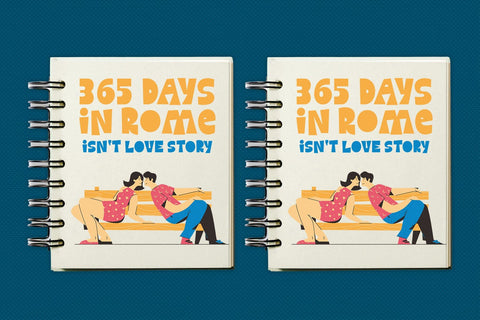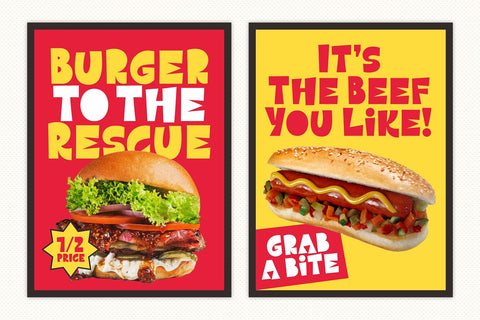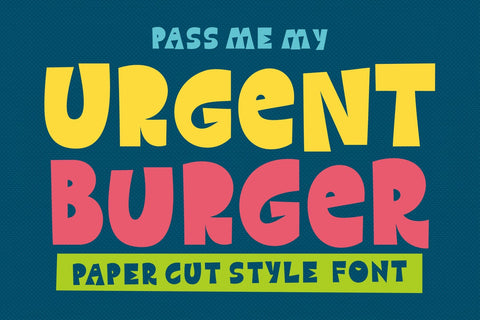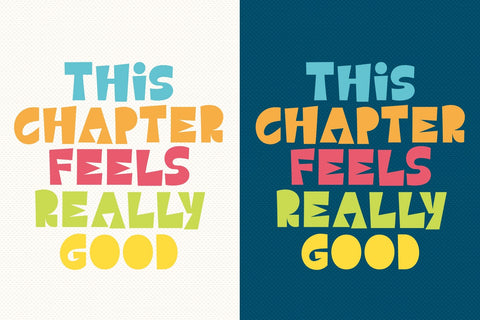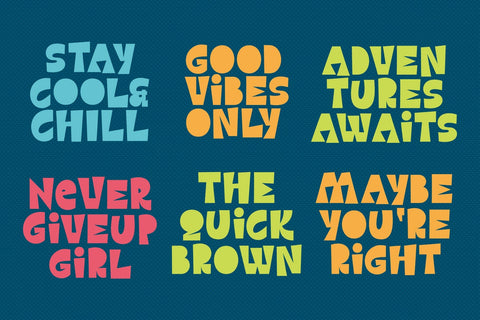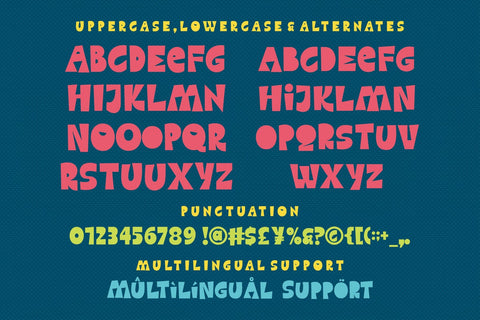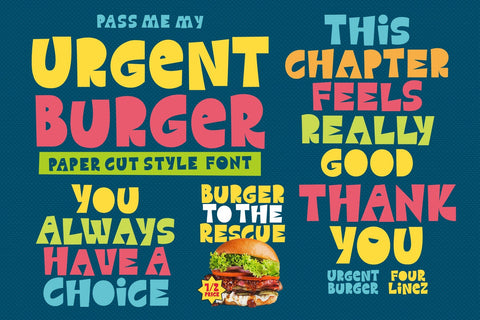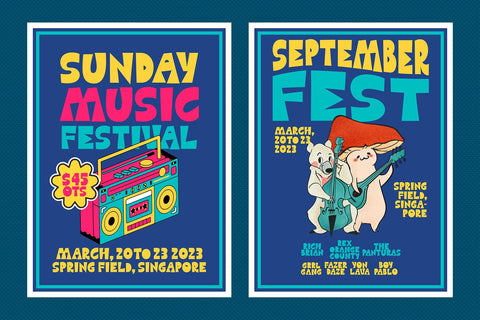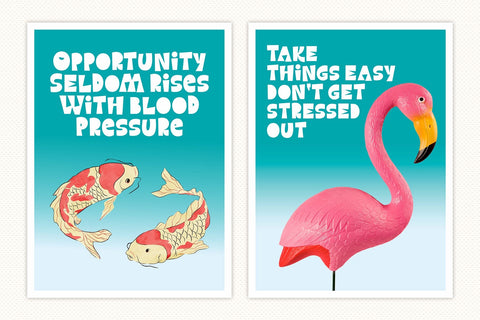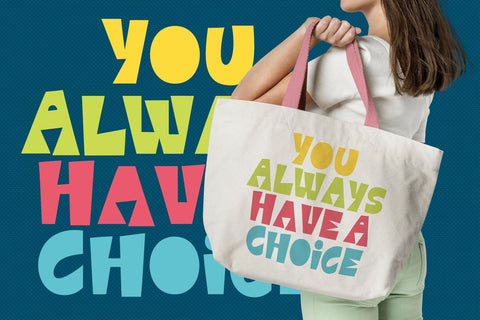
Urgent Burger - Papercut Style Font
Meet Urgent Burger, a font inspired by paper cut styles.
"Urgent Burger" is not just about looks; it's also designed with the science of typography in mind. Each letter is crafted for exceptional readability and legibility. So, your message always shines through.
Whether you're designing a whimsical birthday card, a captivating logo, or a funky poster, "Urgent Burger" adapts effortlessly to any project. With multiple weights and styles, you have the creative freedom to play around and explore endless possibilities.